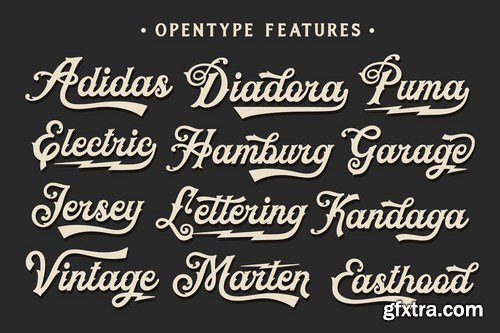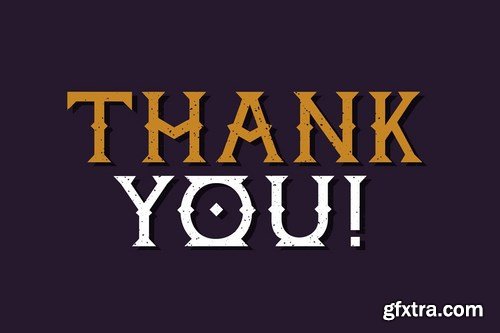
Raightone font of these consist with four different style with vintage feel, perfect for product logo, branding projects, headlines, posters, packaging, clothing brand logo,Vintage design and much more.
A wide range of standart ligatures, alternate characters, as well as four different weights allow unique design options! The Features includes: Stylistic Alternates, Swashes, Ligatures, and Stylistic Set. WHAT YOU GET? 4 font files with OTF file and support PUA Encoded font files for use with software that doesn't support OpenType features such as Silhouette, Inkscape, etc. Vector BONUS